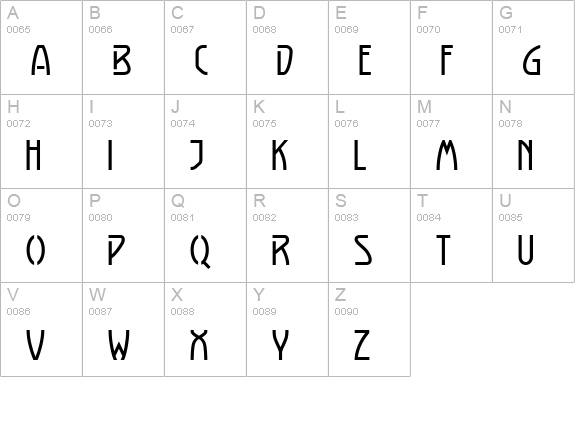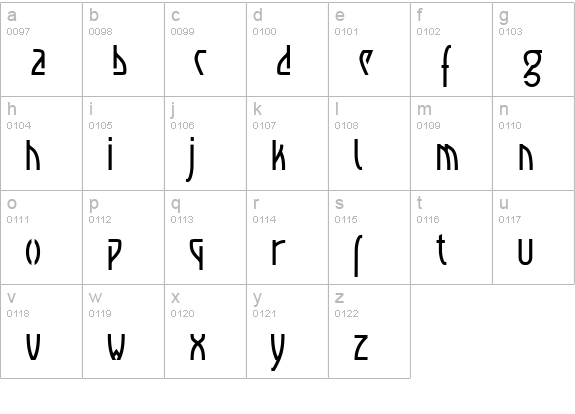
Luxembourg 1910 Font Details
Luxembourg 1910 is a free for personal use font in the Modern > Stencil category. It has been downloaded 11 times and is available for Windows, Mac and Linux.
Luxembourg 1910 is a captivating and elegant font that takes your typography to a whole new level. Inspired by the timeless beauty of the early 20th century, this font effortlessly blends vintage charm with a modern twist. With its graceful curves and intricate details, Luxembourg 1910 captures the essence of a bygone era. Each letter is meticulously crafted, exuding a sense of sophistication and refinement. Whether used for headlines, logos, invitations, or any other design project, this font adds a touch of class and nostalgia. What sets Luxembourg 1910 apart is that it is not only visually stunning but also freely available to download. FontsMarket.com offers this beautiful font at no cost, allowing designers, artists, and enthusiasts alike to embrace its timeless allure without breaking the bank. From its elaborate uppercase letters to its delicate lowercase characters, Luxembourg 1910 offers a wide range of possibilities. Its versatility makes it suitable for both traditional and contemporary designs, giving your projects a touch of elegance that is hard to ignore. Whether you're working on a vintage-inspired poster, a wedding invitation, or a branding project that requires a touch of nostalgia, Luxembourg 1910 is the perfect choice. Its timeless appeal, combined with its free availability, makes it a font that every designer should have in their toolkit. Experience the beauty of Luxembourg 1910 today and bring a touch of old-world charm to your designs. Download it for free at FontsMarket.com and let this captivating font elevate your typography to new heights.